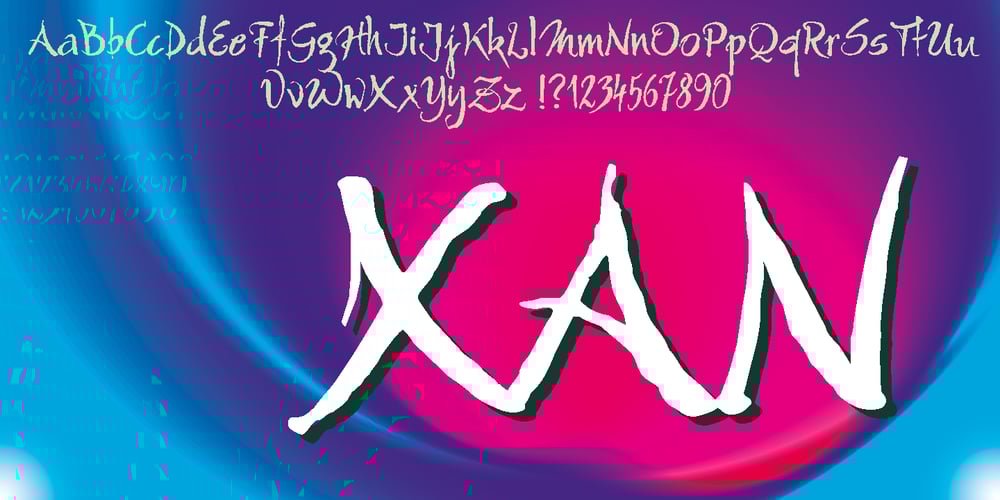
Xan font
Xan Font Family was designed by Gert Wiescher and published by Autographis. Xan contains 1 styles and family package options. Xan is a very expressive script, that was written with a brush on rough Japanese paper and then digitized taking care not to destroy that Japanese touch.